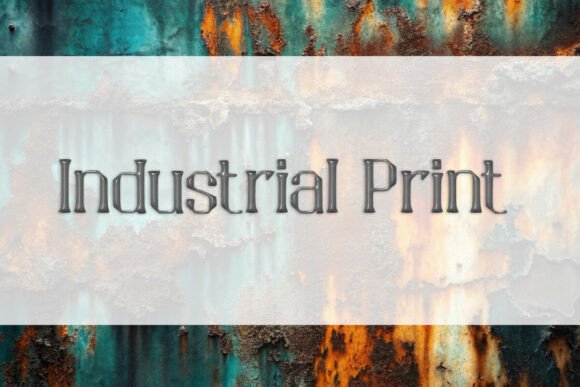
Introduction to Industrial Print Font Font
Fonts play a crucial role in design, and the Industrial Print Font font is a typeface that brings both character and versatility to any project. Whether you’re working on a branding project, a website, or a print design, the Industrial Print Font font offers a unique style that can elevate your work.
Embrace the gritty charm of the Industrial Print Font.
Perfectly suited for an array of creative projects, its rough, distinctive textures nod to its namesake Whether itβs fashioning captivating logos for hipster t-shirts, designing edgy stickers that pop, or giving your brand a unique identity, this fontβs versatility knows no bounds.
Key Features of Industrial Print Font Font
Why Choose Industrial Print Font Font?
The Industrial Print Font font is more than just a typeface β it’s a design tool that helps you communicate your message with style and clarity. Its unique character set and versatile design make it suitable for a wide range of applications, from elegant invitations to bold headlines.
With its carefully crafted letterforms and balanced proportions, the Industrial Print Font font ensures readability and visual appeal across all mediums.
What makes Industrial Print Font font special?
The Industrial Print Font font stands out with its unique design, exceptional readability, and versatility across various design applications.